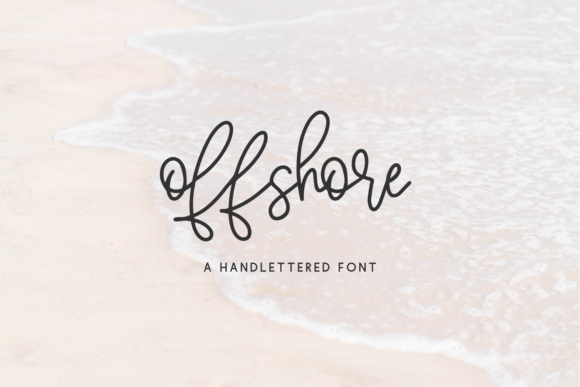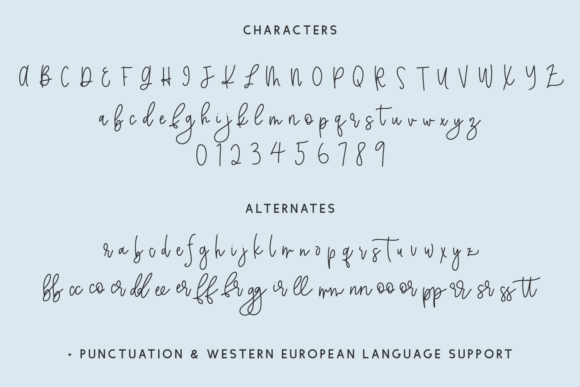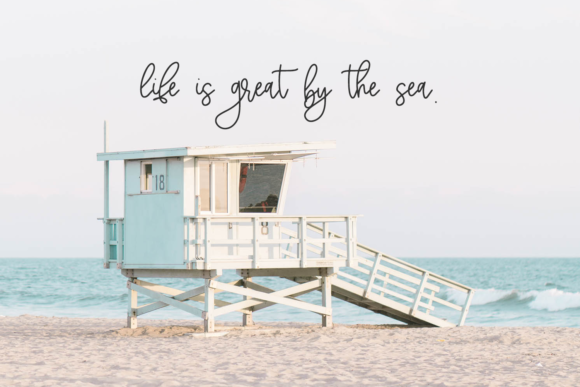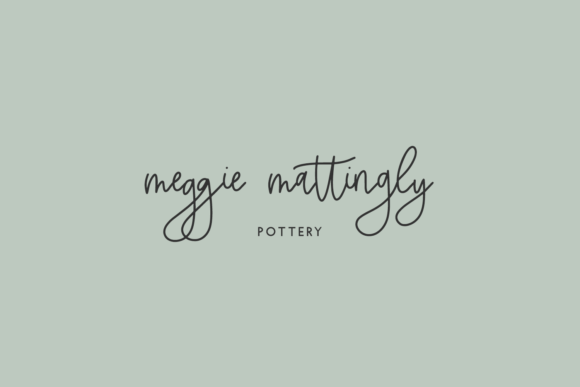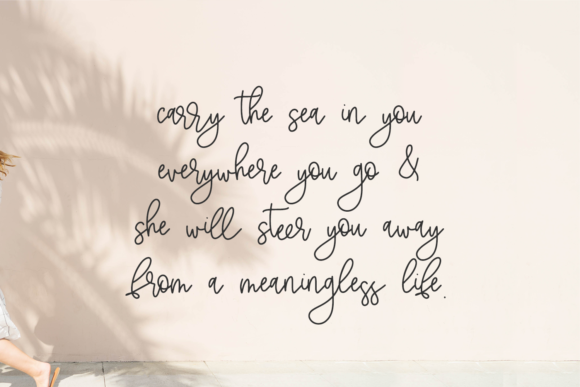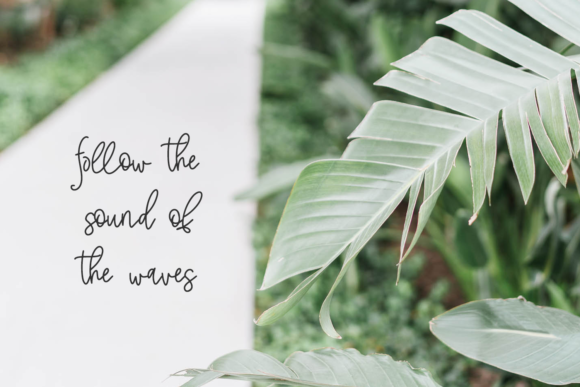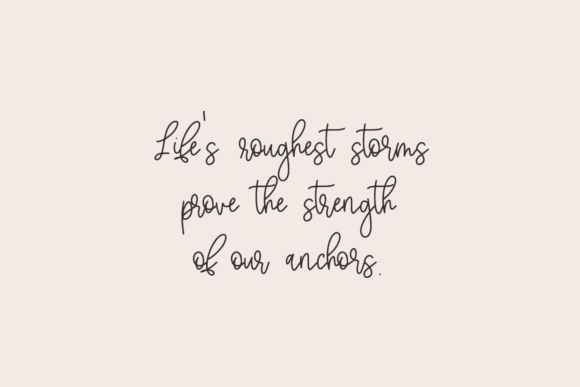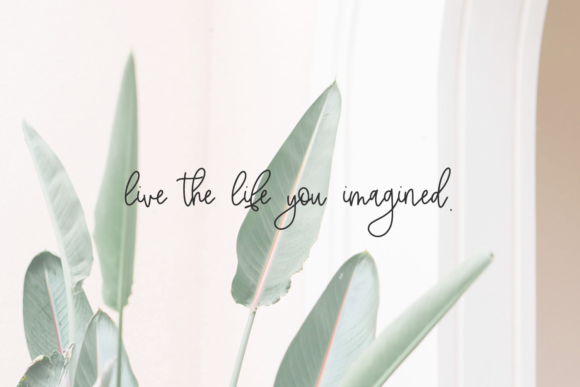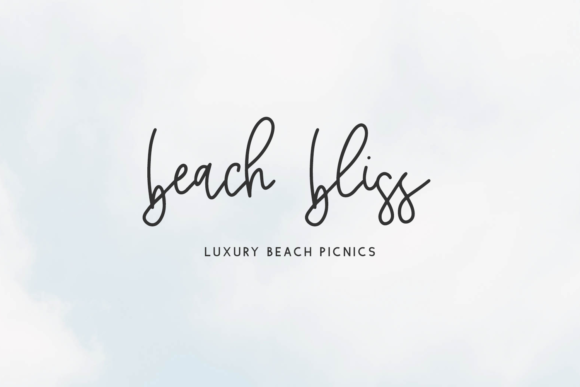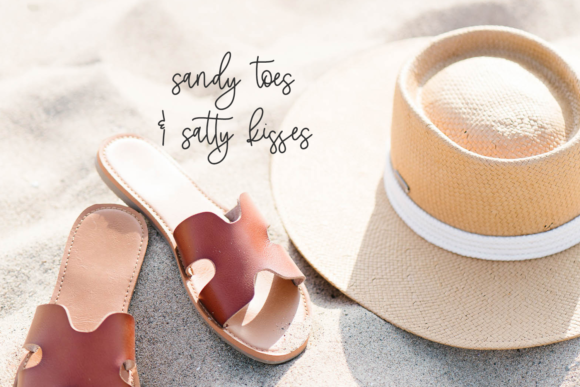
Offshore Script Font
About Offshore Script Font
Offshore Script is an elegant hand-lettered calligraphy script. Offshore is a monoline font and features beautiful loopy ascenders & descenders, as well as a selection of alternates & ligatures.
Offshore Script is best for logos and branding for feminine or kid-centric brands, header elements that need a cute handwritten touch, quote graphics for social media, and crafting.